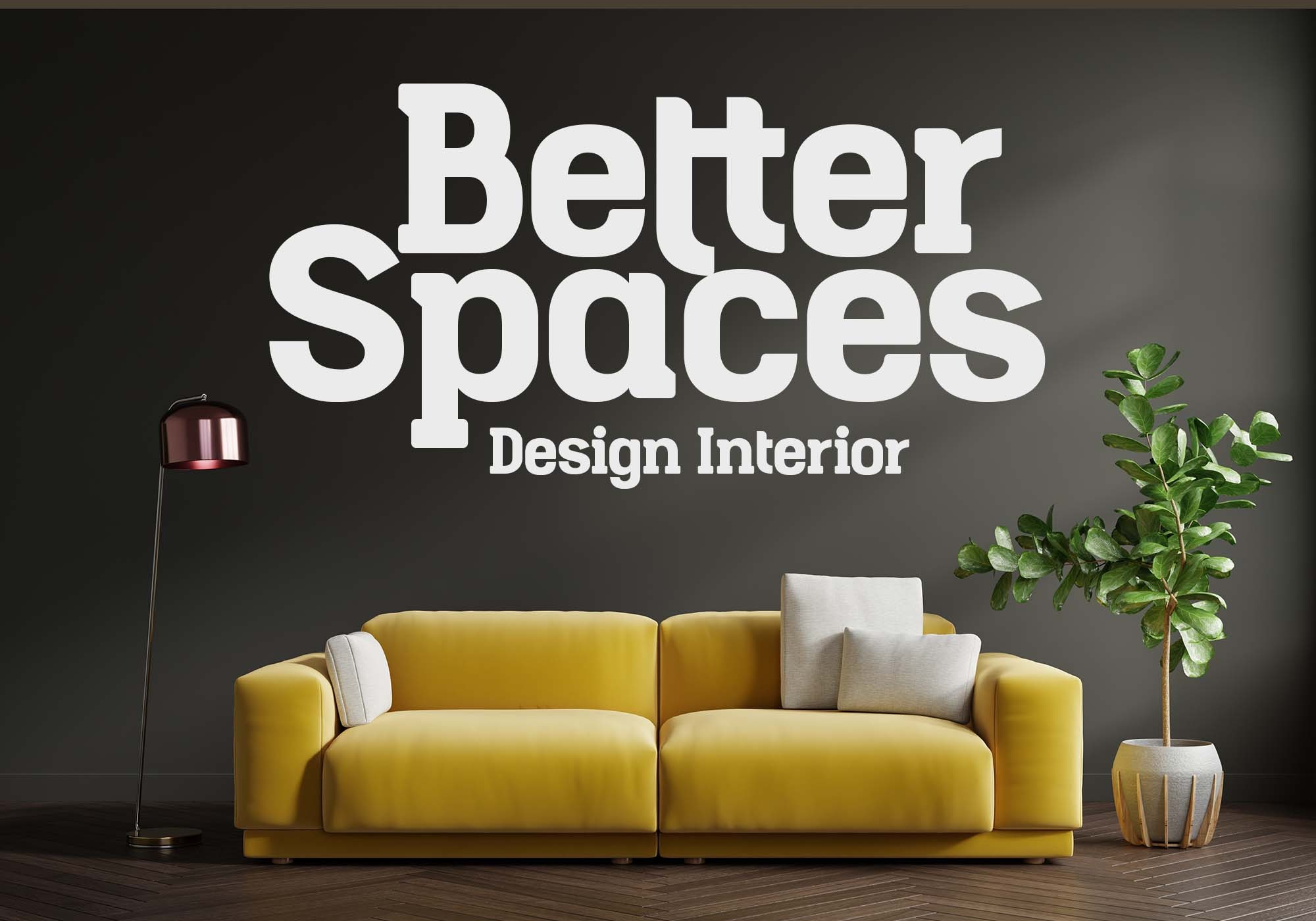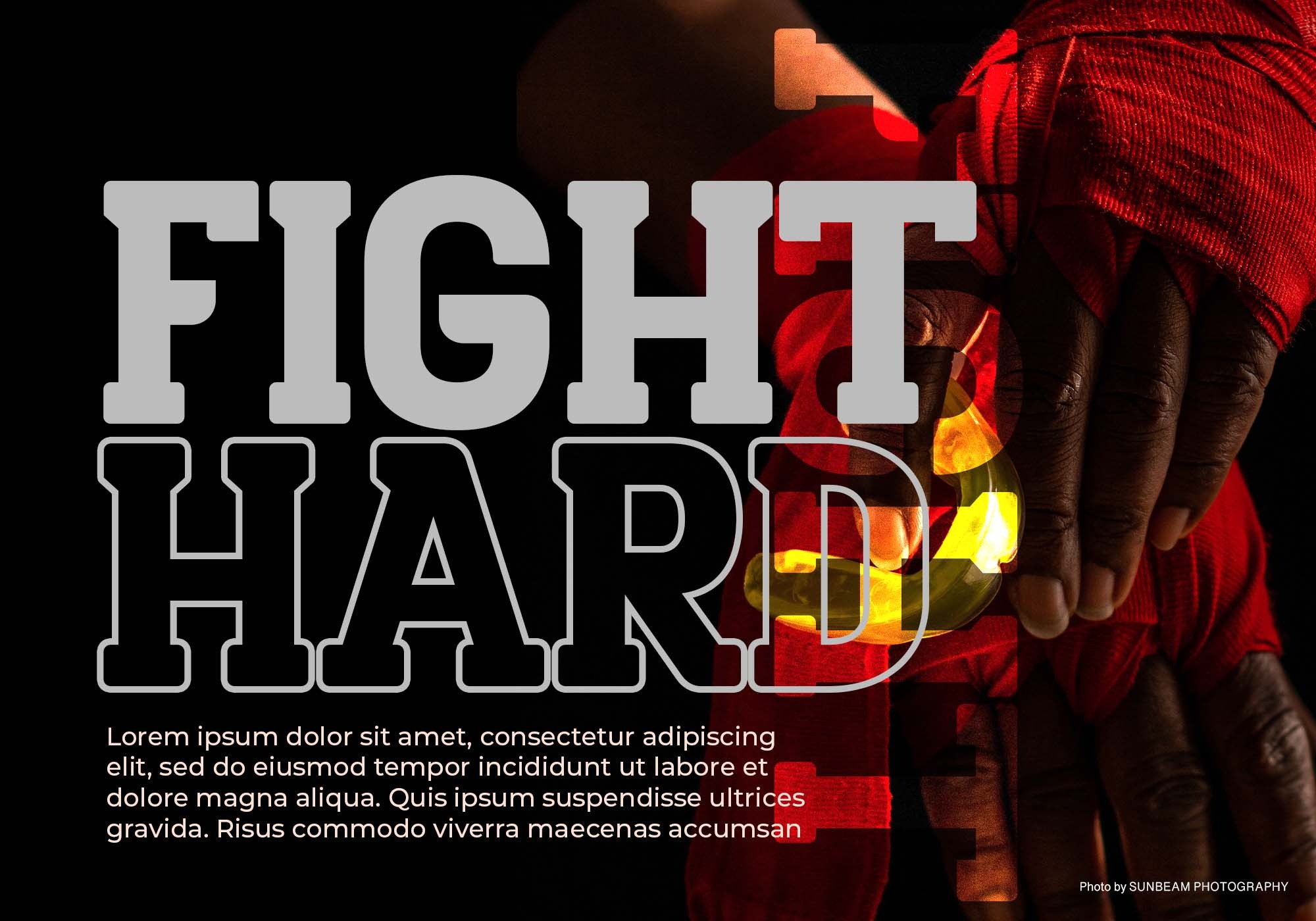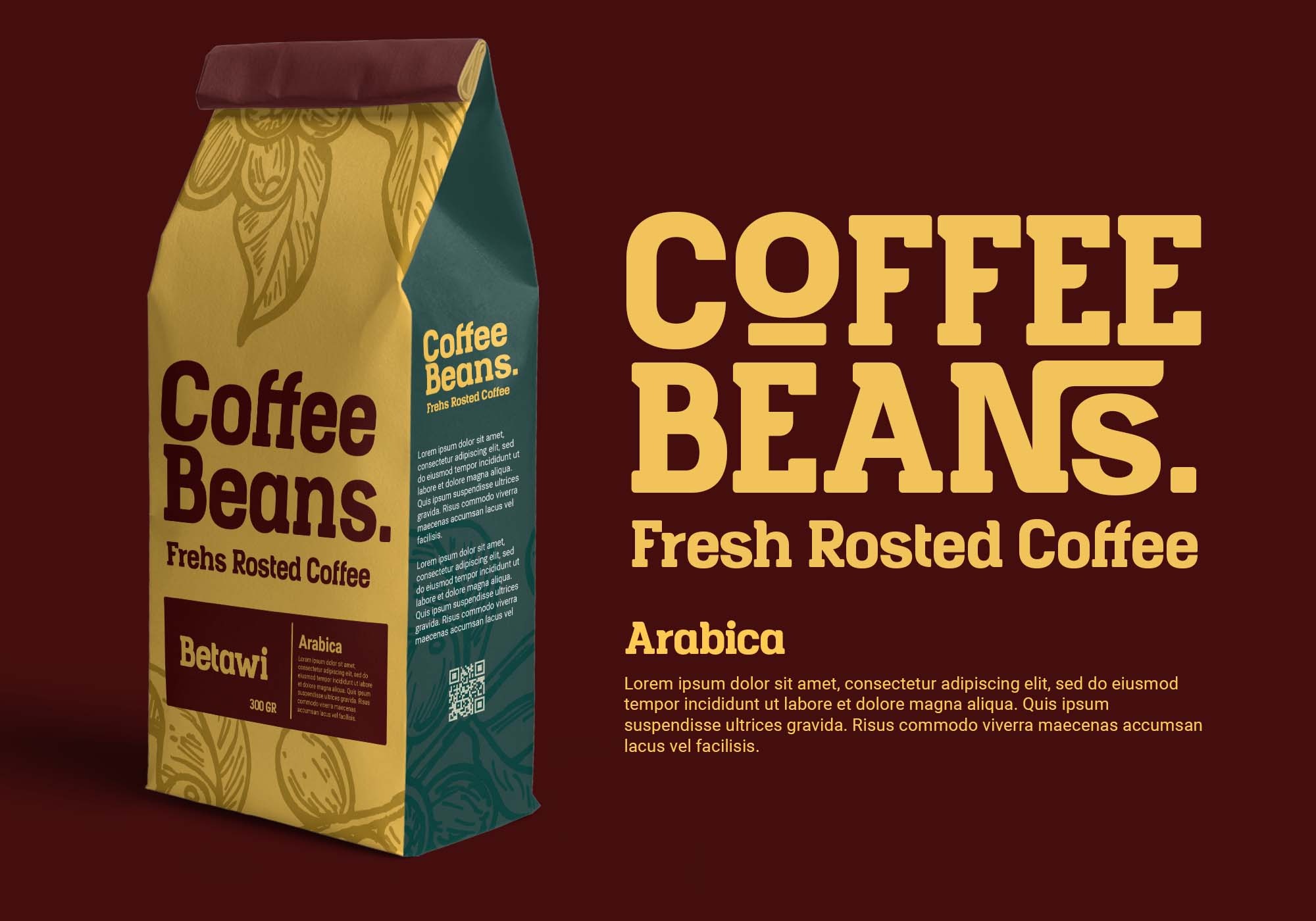
Ottine Slab Font
This is a condensed slab serif typeface manufactured by Ardyanatypes. Inspired by Industrial style. It is equipped with features to add a kind that makes the project impressionable. Ottine Slab is also equipped with various languages so that it allows Ottine Slab to be used in all your projects. Ottine Slab is very suitable for use in multiple purposes or projects, including Sport, Poster, Product, Logo, Branding, and many more that you can apply with this Ottine Slab Typeface.